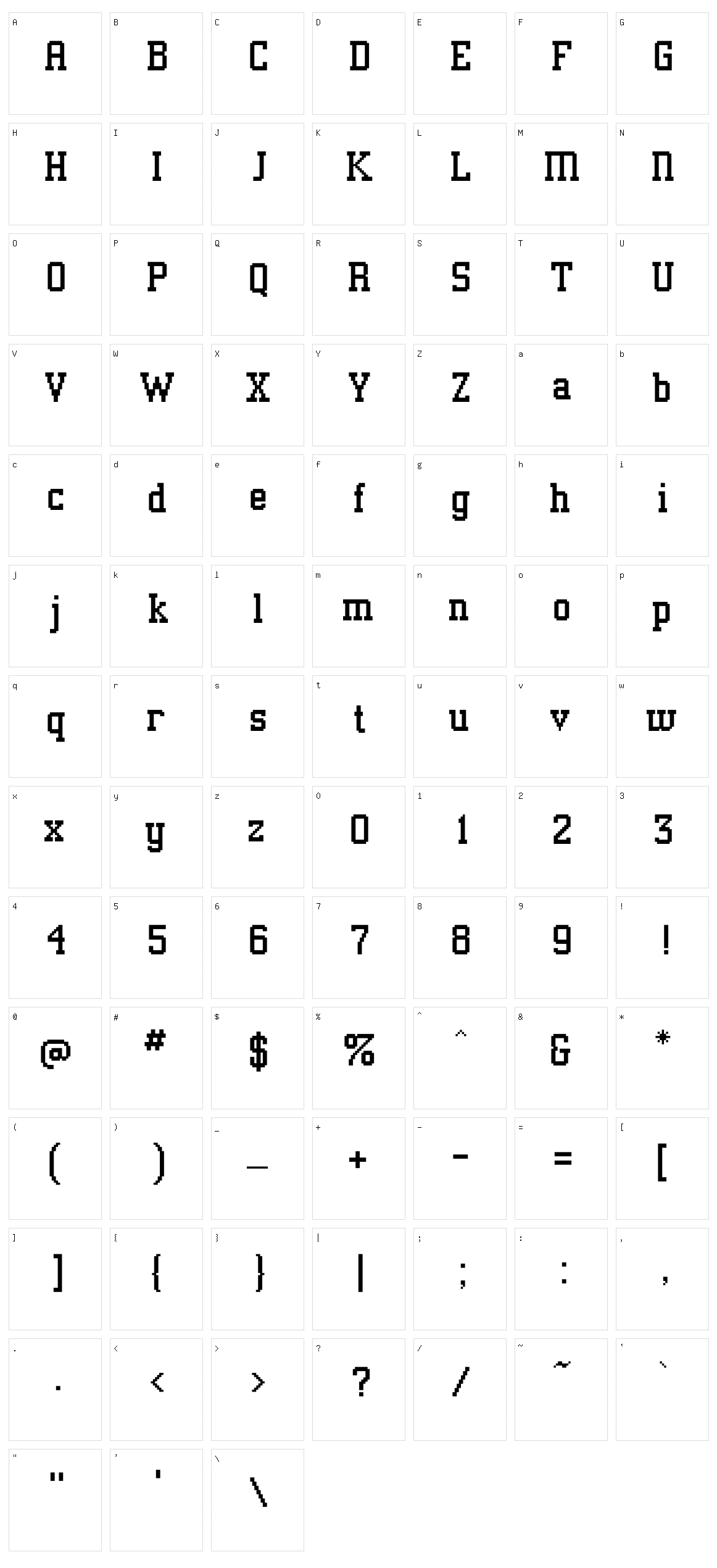
Athens Classic
Designed by: soixantedeux
Athens Classic
by soixantedeux
This is a hand-made TrueType version of the out-of-use Apple bitmap font
"Athens." I didn't make the original font; I did, however, make this font,
which is based very heavily on the original font.
Athens Classic Character Set